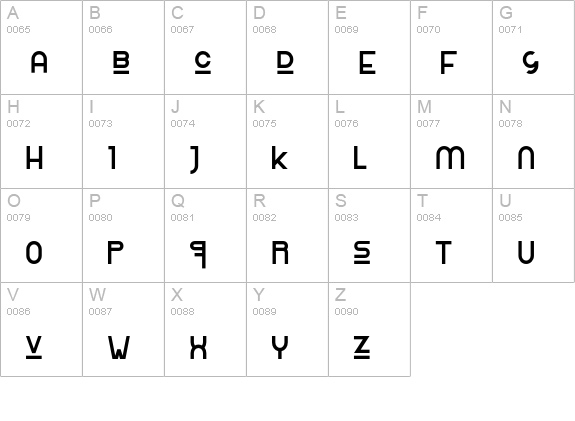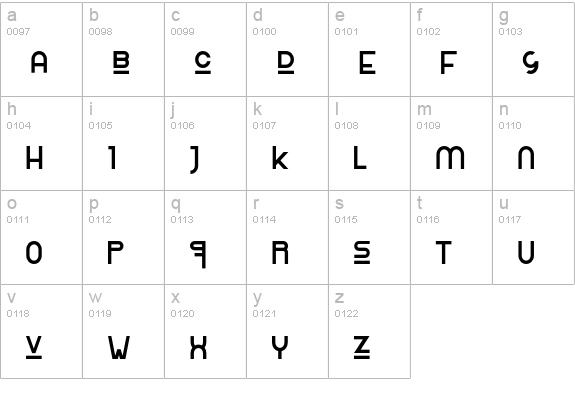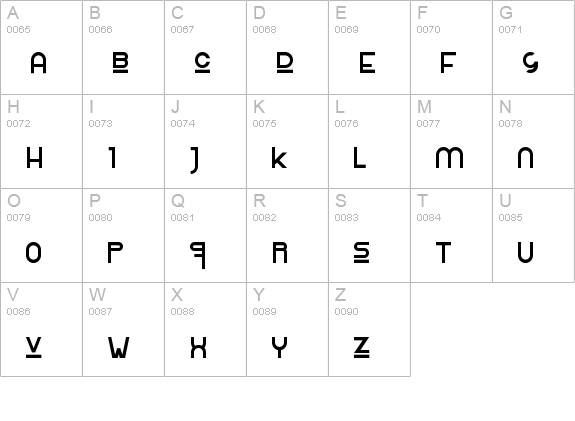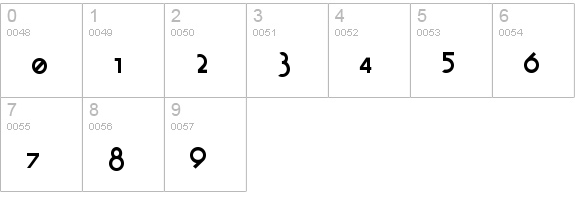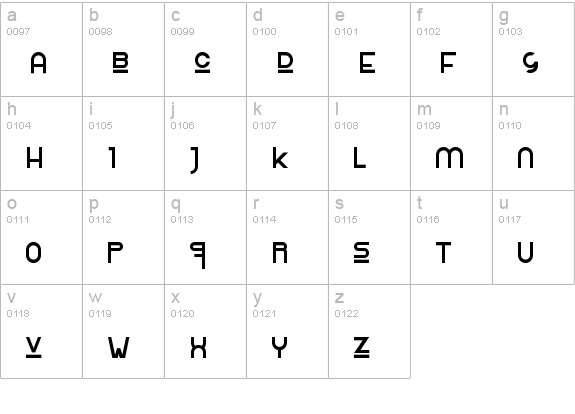
RolingaRennerExtravaganza Font Details
Introducing the enchanting RolingaRennerExtravaganza font, a whimsical and playful typeface that exudes creativity and charm. This font is perfect for adding a touch of fun and personality to any design project. With its unique and intricate letterforms, RolingaRennerExtravaganza will surely captivate and delight your audience. The best part? RolingaRennerExtravaganza is completely free to download at FontsMarket.com, making it easily accessible to all designers and creatives looking to add a touch of magic to their work. Don't miss out on this one-of-a-kind font that will bring joy and creativity to your designs. Download RolingaRennerExtravaganza today and let your imagination soar!